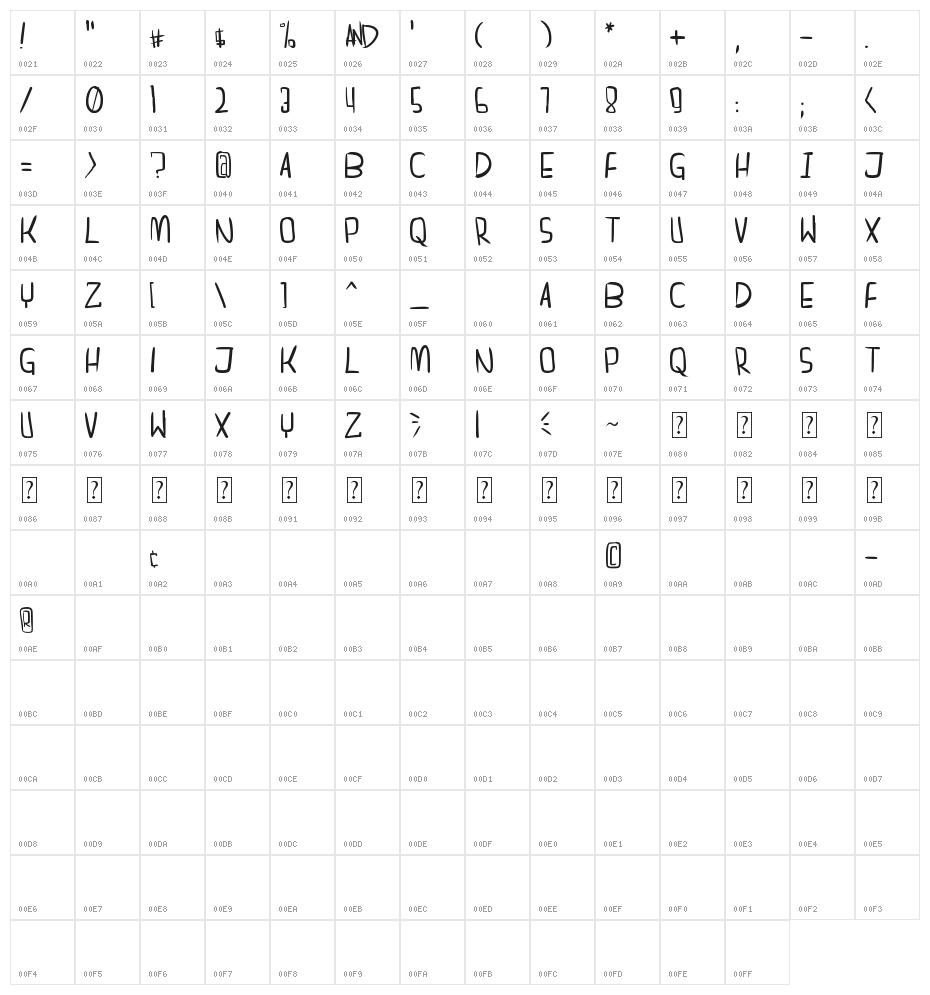
dreamgirl's dream Font
dreamgirl's dream Description
This font features a playful and casual handwritten style, characterized by its slightly irregular and organic letterforms. The strokes are moderately thick, giving it a bold appearance while maintaining a friendly and approachable feel. The characters are slightly slanted, adding a dynamic and lively touch to the overall design. The uppercase and lowercase letters are well-balanced, with a consistent stroke width throughout. The numerals and special characters complement the alphabet with the same whimsical style, making it versatile for various creative projects.
| Use Case | Headlines, Logos, Social Media |
| Proposed Projects | Ideal for children's books, greeting cards, playful branding, and social media graphics. |